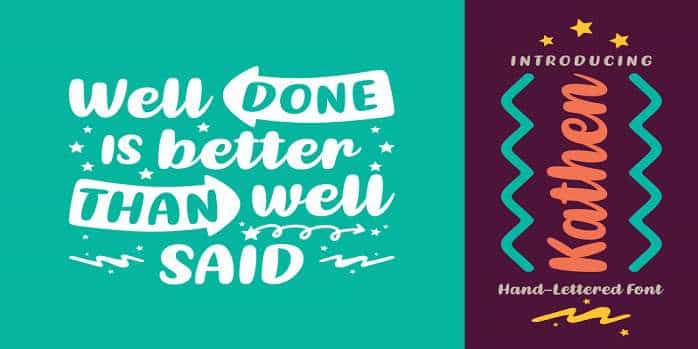
Discover Kathen Font, part of the Brush collection—a versatile and unique font perfect for adding a personal touch to your projects. Download it for free and enjoy crafting designs with style, from invitations to social media posts. This font is available exclusively for personal use, giving you the freedom to create without limits. Unlock your creativity with Kathen Font today!
Kathen is a high quality Brush font designed by 7NTypes and is available for free download and for personal use. The free only offers all uppercase and lowercase letters, and only a few special characters.